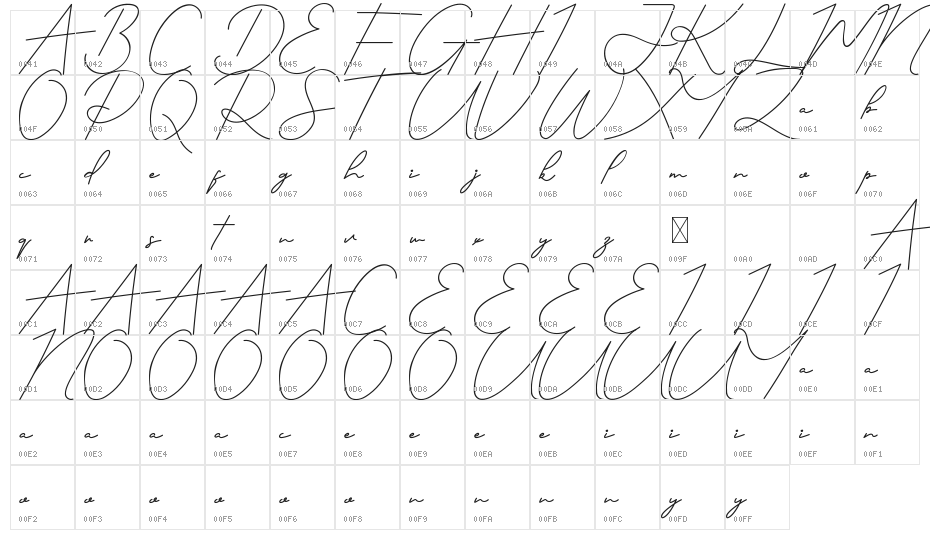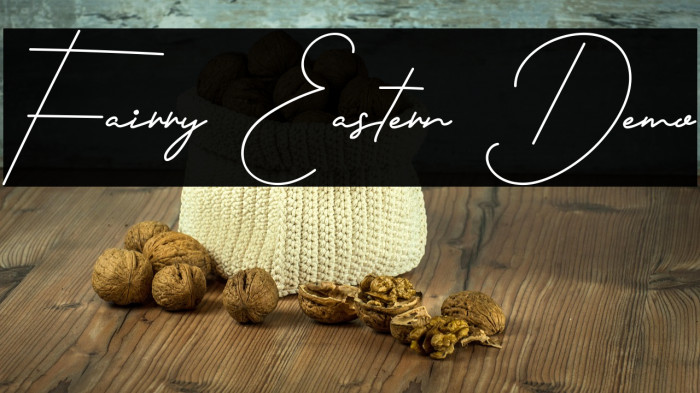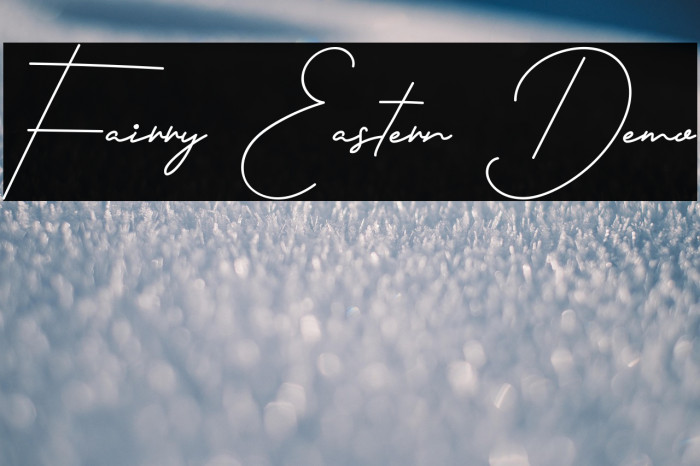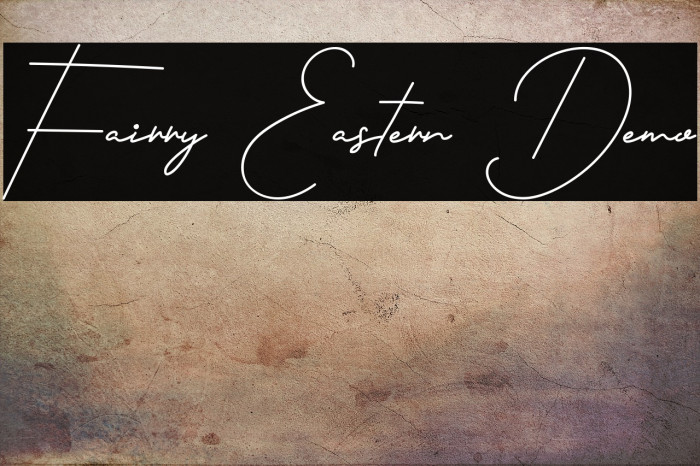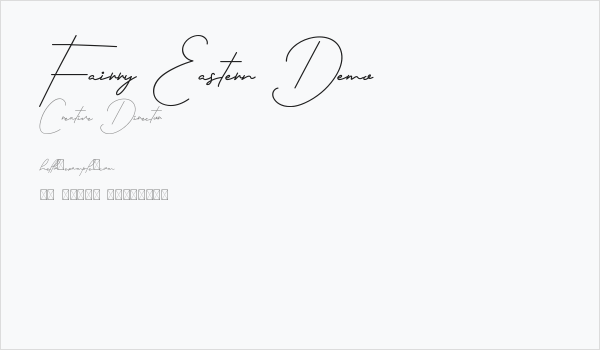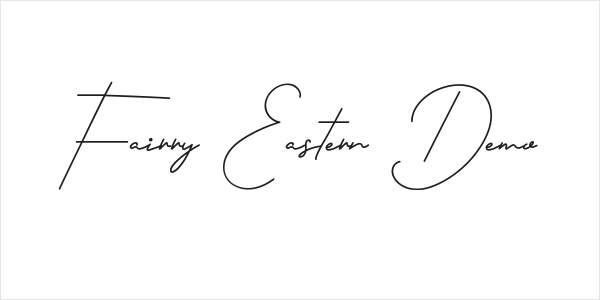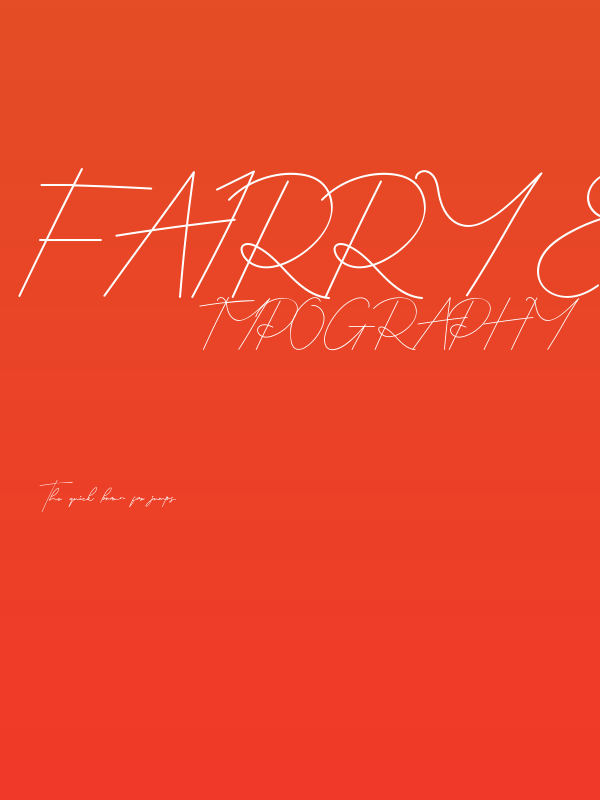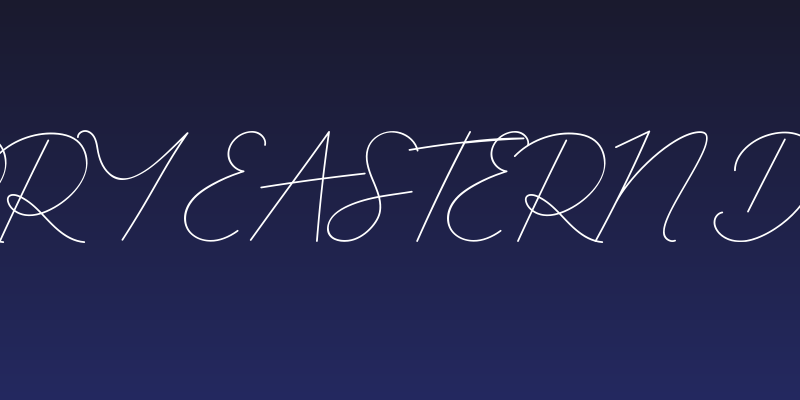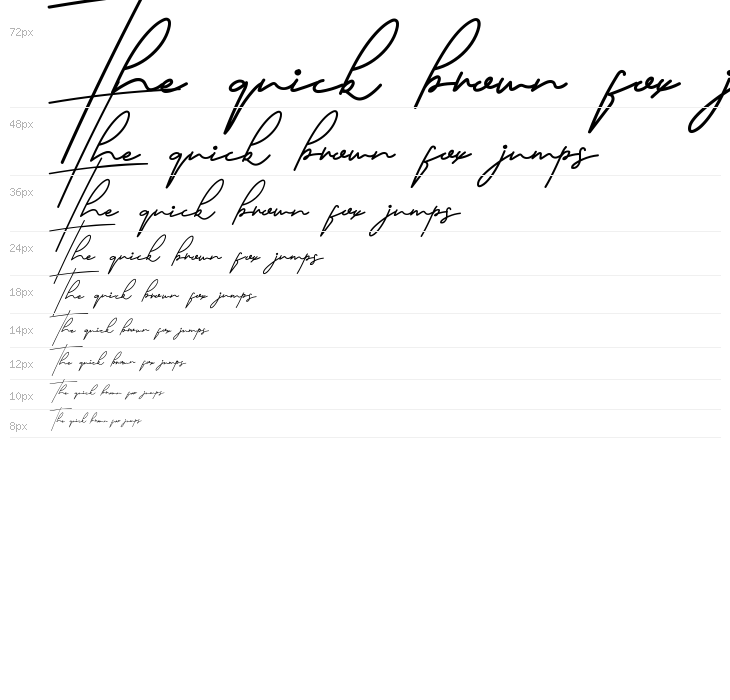
Fairry Eastern Demo Font
Fairry Eastern Demo Description
This font features a delicate and elegant script style with a handwritten appearance. The uppercase letters are thin and elongated, giving a sense of sophistication and grace. The lowercase letters are more fluid and connected, enhancing the cursive aesthetic. The overall design is airy and light, with a consistent stroke width that maintains readability while adding a touch of elegance. The special characters blend seamlessly with the alphabet, maintaining the font's cohesive look. This font is ideal for projects that require a personal and refined touch.
| Overall Style | Elegant, Handwritten |
| Proposed Projects | Ideal for wedding invitations, personal branding, elegant stationery, and artistic projects. |